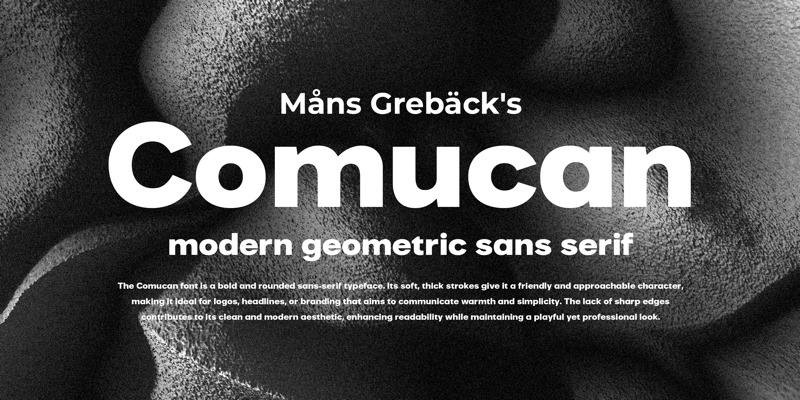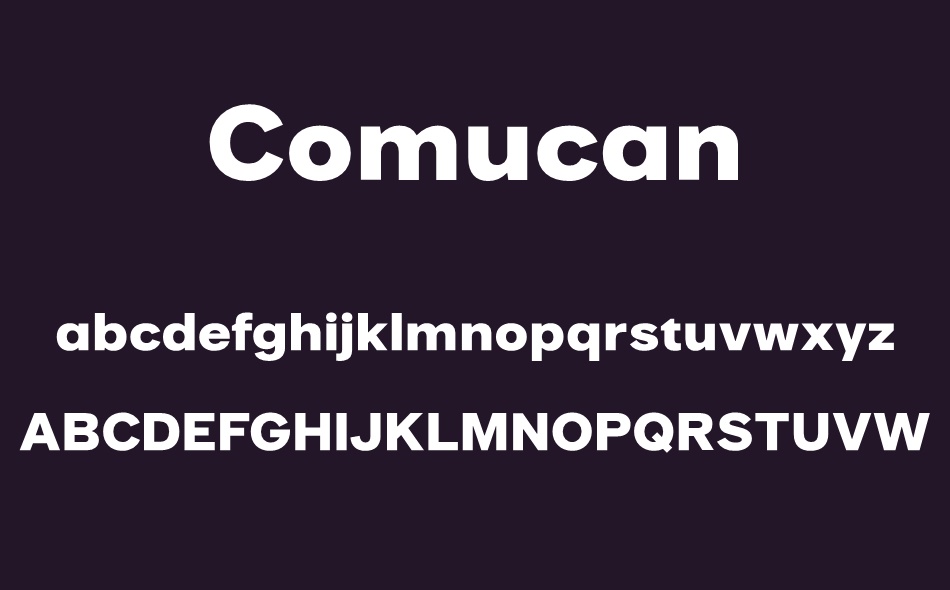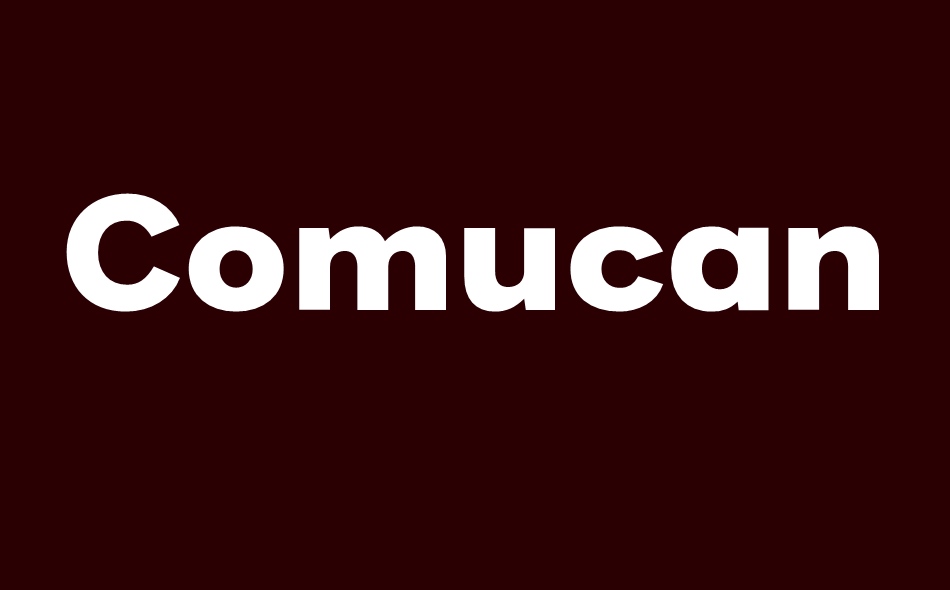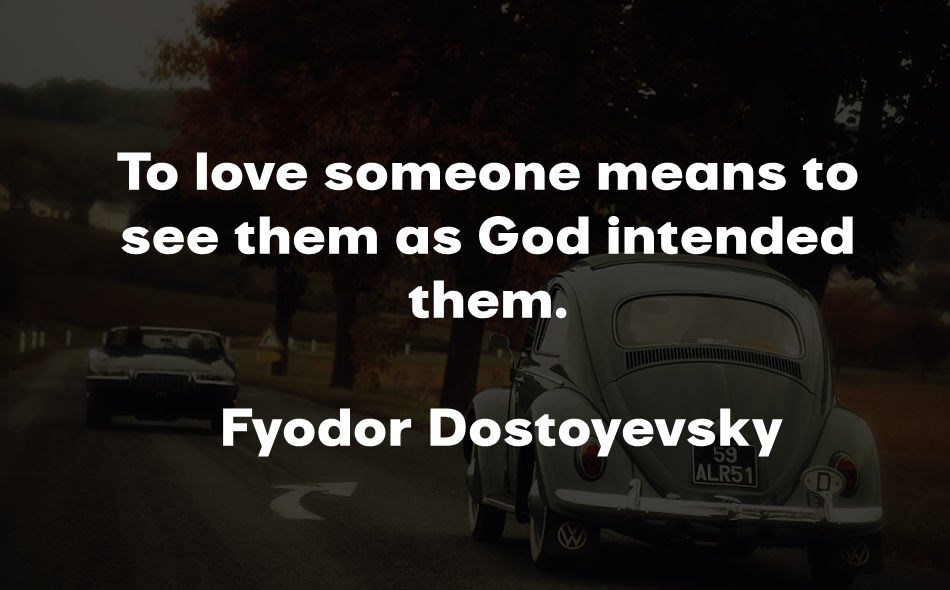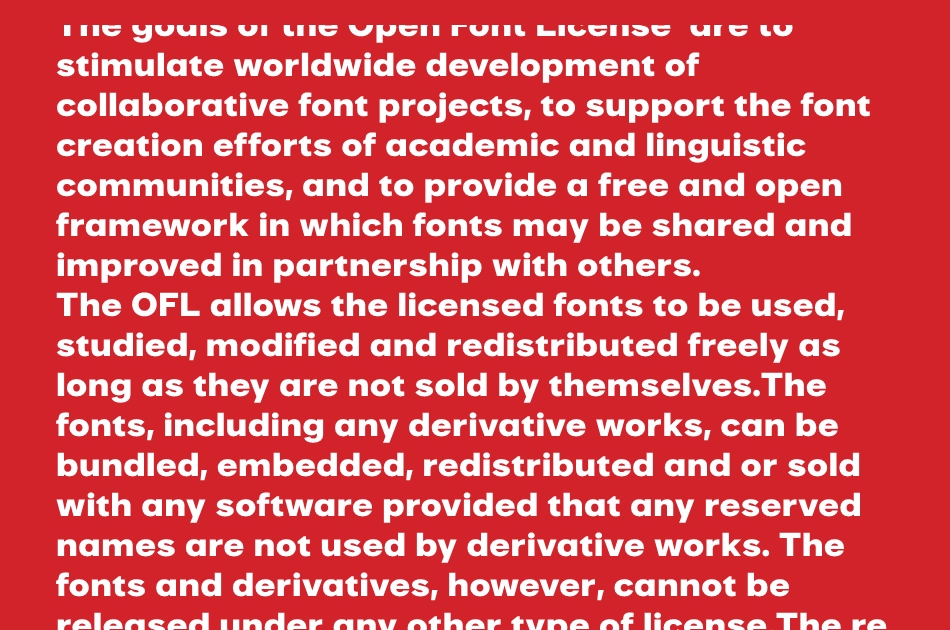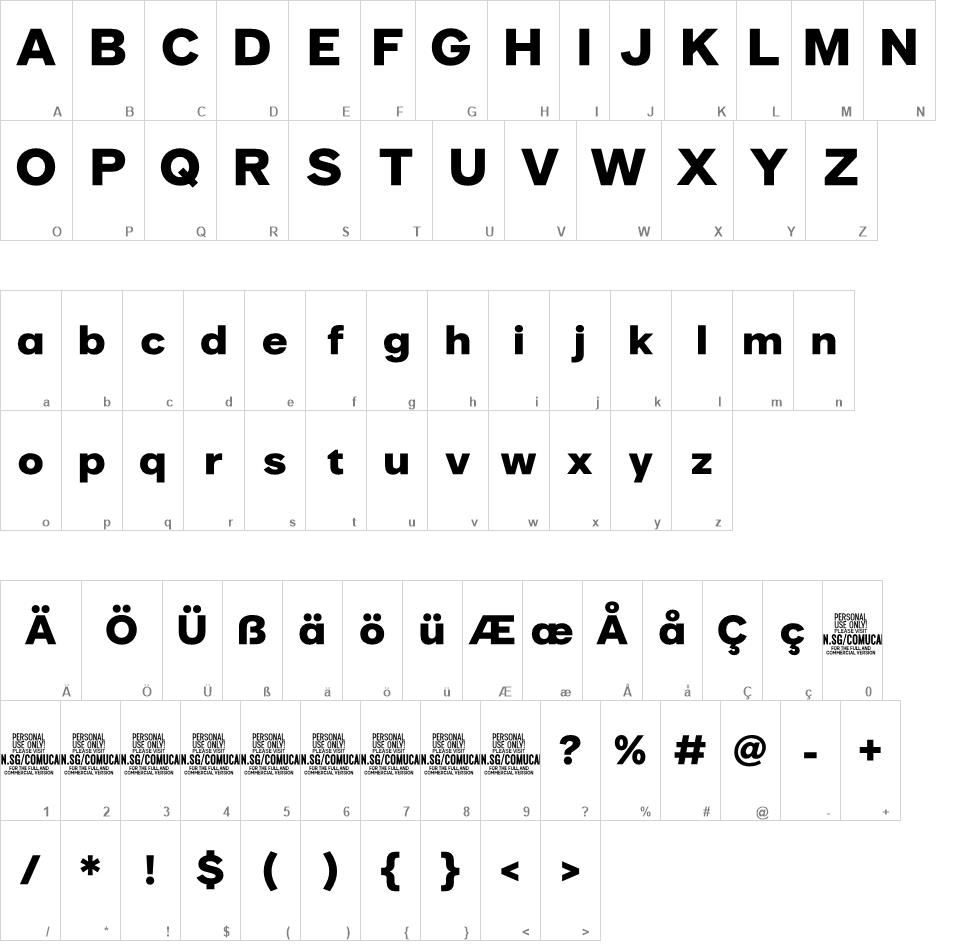
Comucan font
Comucan is a modern geometric sans serif with a bold, rounded voice. It is built on simple shapes and even rhythm, giving the letters a calm confidence that feels both contemporary and human. The forms are soft without being vague, and sturdy without feeling heavy.
Comucan is a modern geometric sans serif with a bold, rounded voice. It is built on simple shapes and even rhythm, giving the letters a calm confidence that feels both contemporary and human.
The forms are soft without being vague, and sturdy without feeling heavy. Wide curves, open counters, and steady proportions make the text easy to read while keeping a friendly presence. Italics are smooth and controlled, adding movement without breaking the structure. Across weights and styles, the design stays consistent and reliable.
The font is built with advanced OpenType functionality and guaranteed top-notch quality, containing stylistic and contextual alternates, ligatures and more automatic and manual features; all to give you full control and customizability.
It has extensive lingual support, covering all Latin-based languages, from North Europa to South Africa, from America to South-East Asia. It contains all characters and symbols you'll ever need, including all punctuation and numbers.
Comucan was designed with clarity and warmth in mind. The goal was to create a typeface that feels modern and approachable at the same time, with shapes that are straightforward but never stiff. It is a font meant to communicate clearly, without drawing attention away from the message.